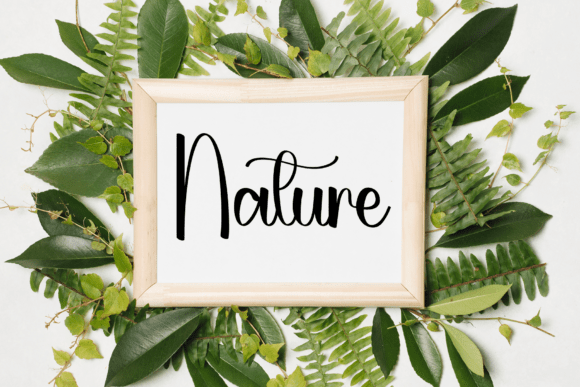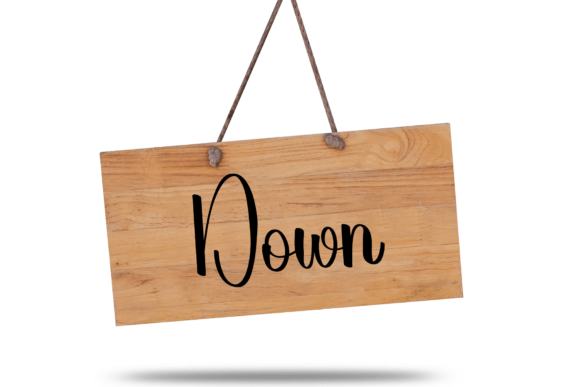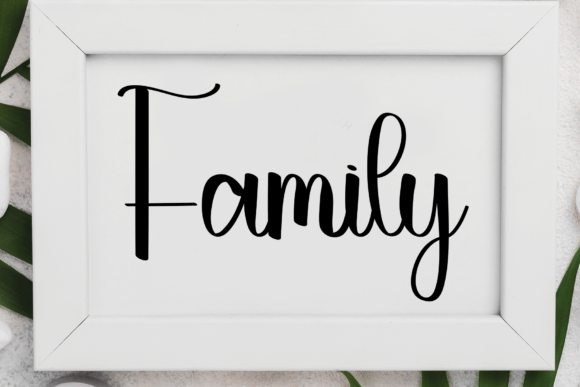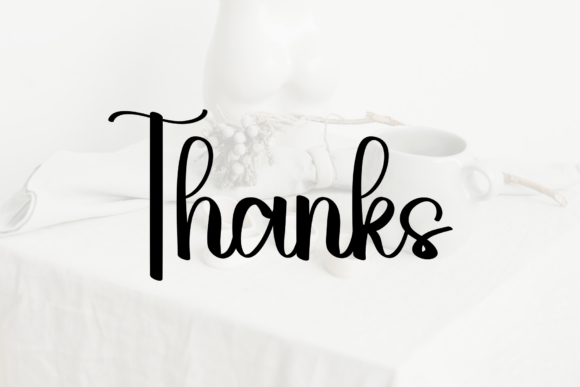
Introducing Handmade Valentine Font: Add a Touch of Whimsy to Your Designs
Are you looking for a font that can add a personal touch to your design projects? Do you want to create something that stands out from the crowd and speaks to your audience on an emotional level? Look no further than the Handmade Valentine font, a sweet and beautiful handwritten font that is sure to capture hearts.
What is Handmade Valentine Font?
Handmade Valentine is a gorgeous handwritten font that features characters that dance along the baseline, giving it a playful and whimsical feel. This font is perfect for designers and crafters who want to add a cozy accent to their projects, whether it’s a romantic Valentine’s Day card, a charming wedding invitation, or a delightful packaging design.
Key Features of Handmade Valentine Font
- Handwritten with love: Each character in the Handmade Valentine font is carefully crafted by hand, giving it a unique and personal touch.
- Dancing baseline: The characters in this font are designed to dance along the baseline, creating a sense of movement and playfulness.
- Cozy and inviting: The Handmade Valentine font has a warm and welcoming feel that’s perfect for creating designs that are meant to charm and delight.
- Versatile: This font can be used for a wide range of design projects, from romantic cards and invitations to packaging and branding.
Why Choose Handmade Valentine Font?
There are many fonts available that can add a touch of elegance or sophistication to your designs, but if you want to create something that’s truly special and one-of-a-kind, the Handmade Valentine font is an excellent choice. Here are just a few reasons why:
- Emotional connection: Handwritten fonts like Handmade Valentine can create an emotional connection with your audience, making your designs more relatable and memorable.
- Unique personality: This font has a distinct personality that’s hard to find in more traditional fonts, making it perfect for designers who want to stand out from the crowd.
How to Use Handmade Valentine Font in Your Designs
Now that you’ve fallen in love with the Handmade Valentine font, you’re probably wondering how to use it in your designs. Here are a few ideas to get you started:
- Valentine’s Day cards and invitations: This font is perfect for creating romantic cards and invitations for Valentine’s Day.
- Wedding designs: The Handmade Valentine font can add a touch of whimsy and romance to wedding invitations, decorations, and other design elements.
- Packaging design: Use this font to create charming packaging designs for products like candies, soaps, and other treats.
- Branding and marketing: The Handmade Valentine font can be used to create a unique and memorable brand identity for businesses that want to stand out from the crowd.
Tips and Tricks for Working with Handmade Valentine Font
Here are a few tips and tricks to help you get the most out of the Handmade Valentine font:
- Experiment with colors and textures: This font looks great with a variety of colors and textures, so don’t be afraid to experiment and find the perfect combination for your design.
- Pair it with other fonts: The Handmade Valentine font can be paired with other fonts to create a unique and interesting contrast.
- Use it sparingly: Because of its playful and whimsical nature, it’s best to use the Handmade Valentine font sparingly to avoid overwhelming your design.
The Handmade Valentine font is a beautiful and unique addition to any design project. With its playful and whimsical feel, it’s perfect for creating romantic cards and invitations, charming packaging designs, and memorable brand identities. Whether you’re a designer, crafter, or DIY enthusiast, this font is sure to capture your heart and inspire your creativity.